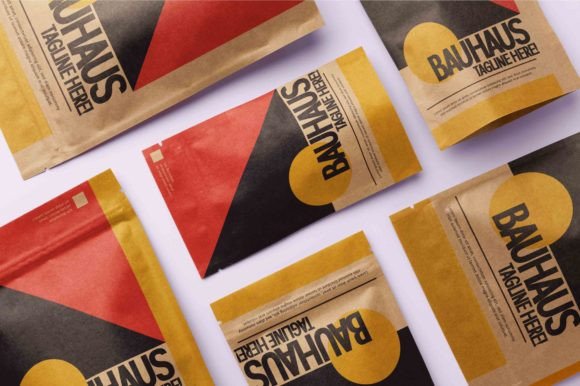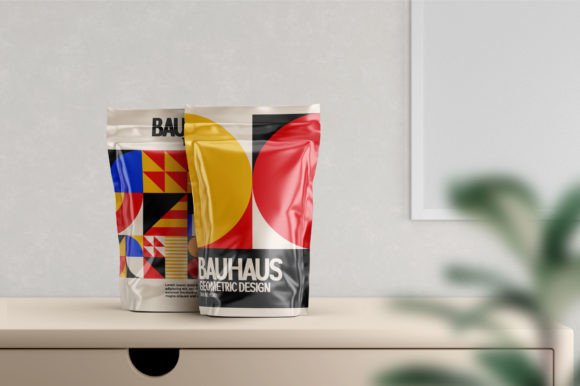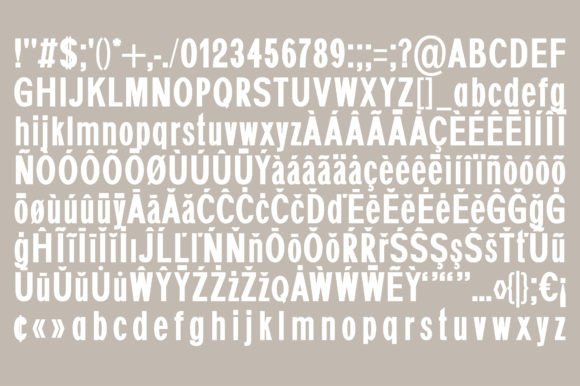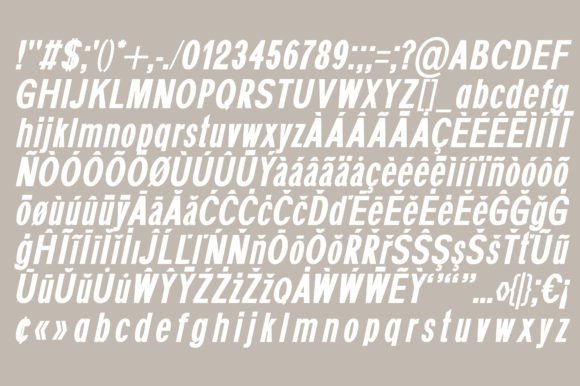
Introduction to Bauhaus Font
Bauhaus is a clean, tall, and grotesque sans serif typeface.
Its amazing minimalistic appearance renders it a vital choice when you want to opt-in for a clean minimalistic design It can be used in various contexts, such as packaging design, product design, die-cutting design, fashion design, perfume, and cosmetics design.
Key Features of Bauhaus Font
Why Choose Bauhaus Font?